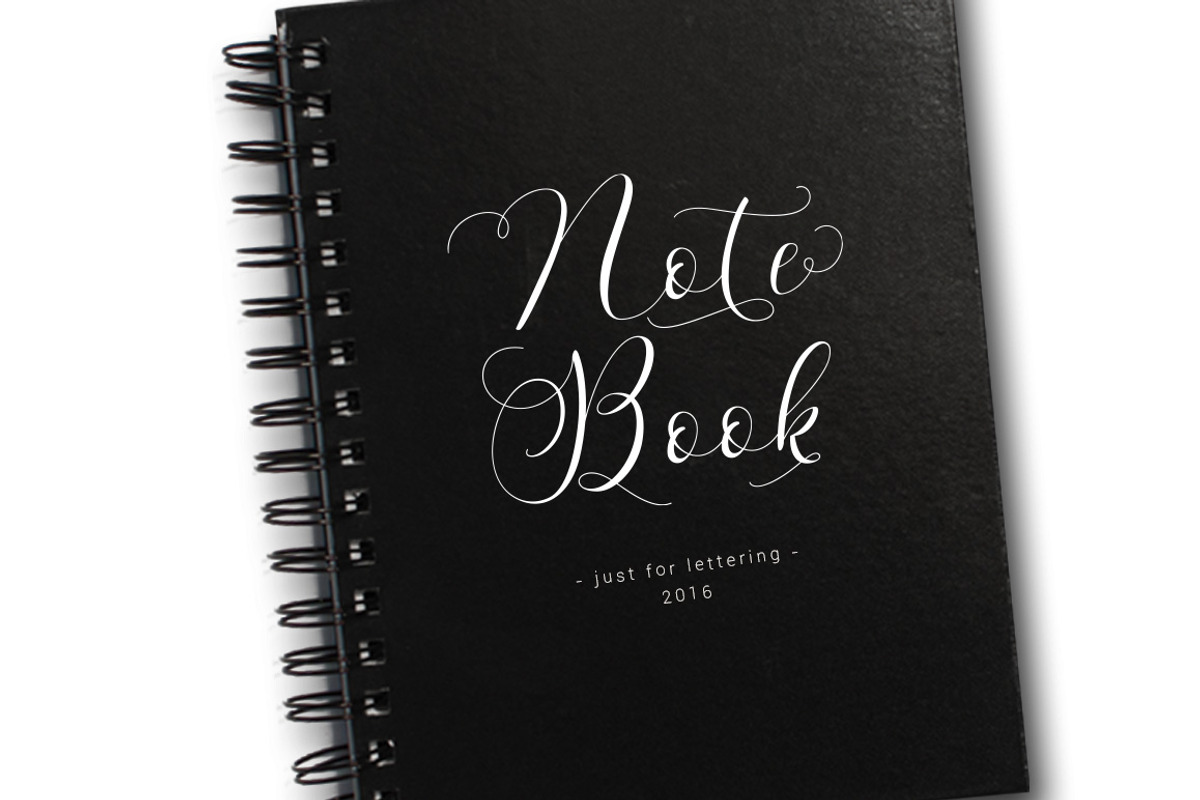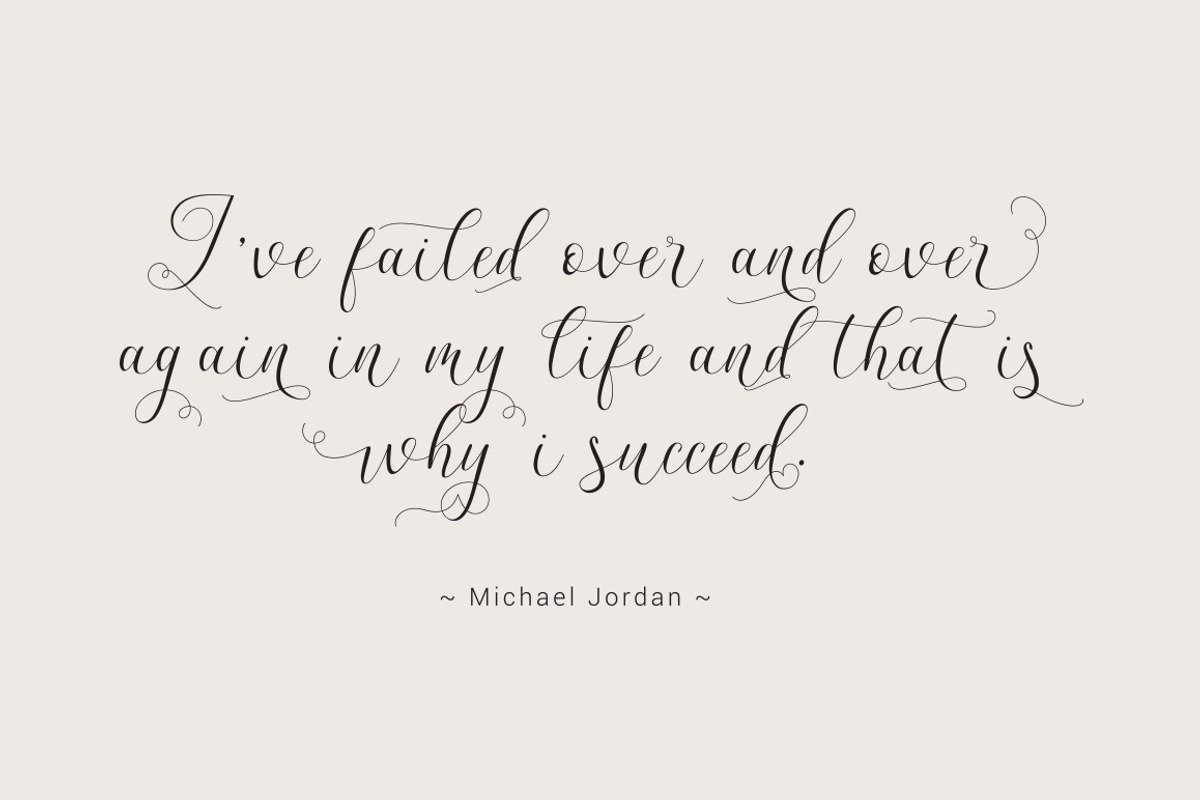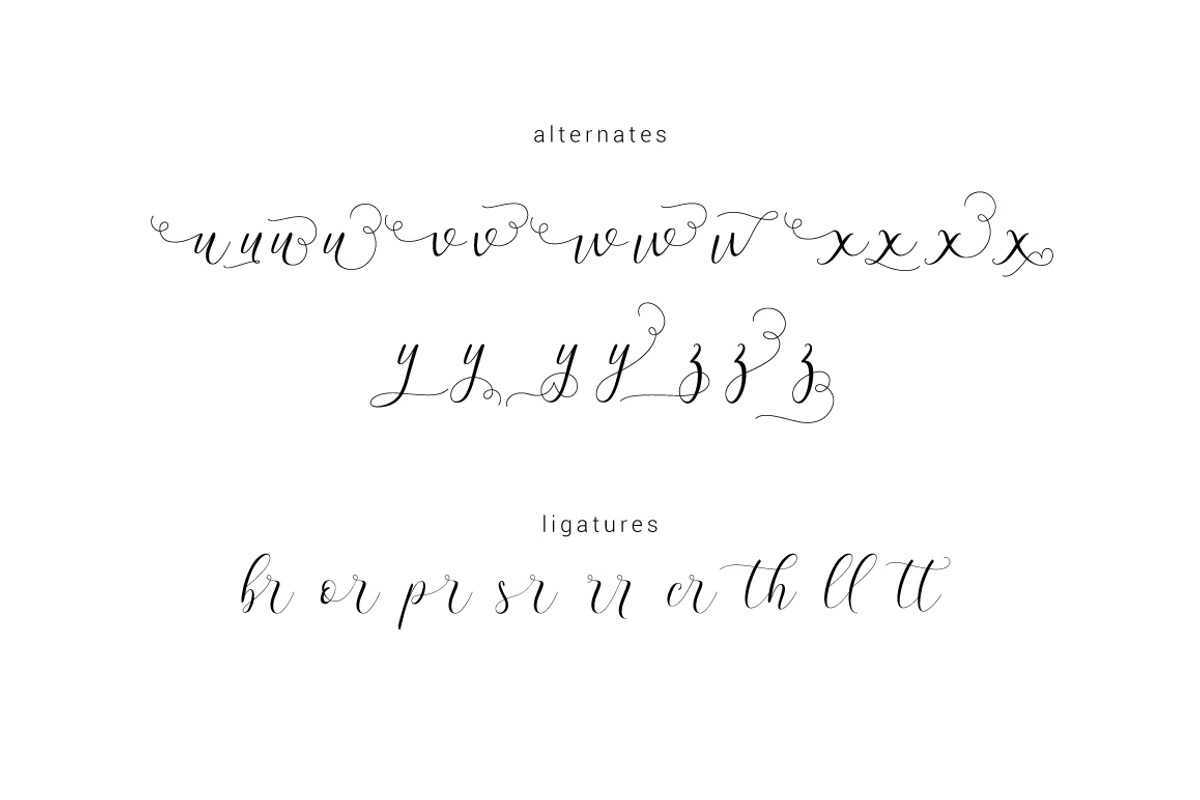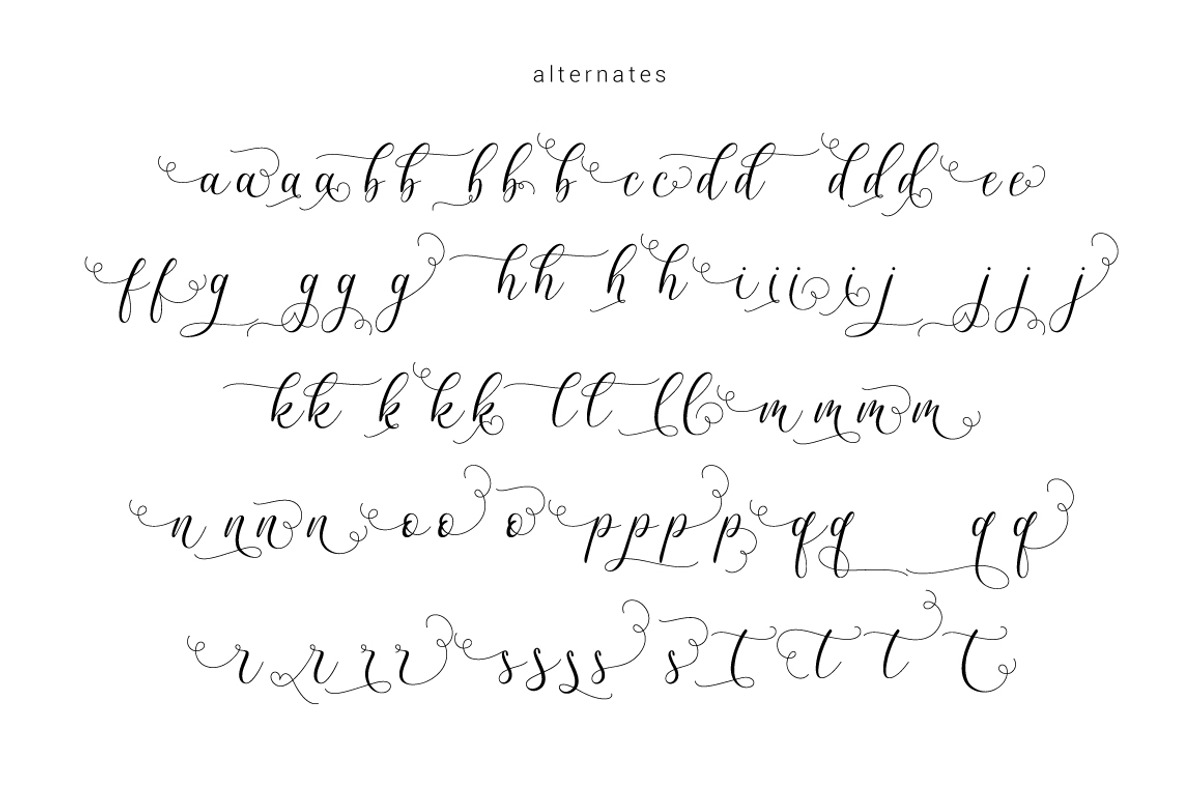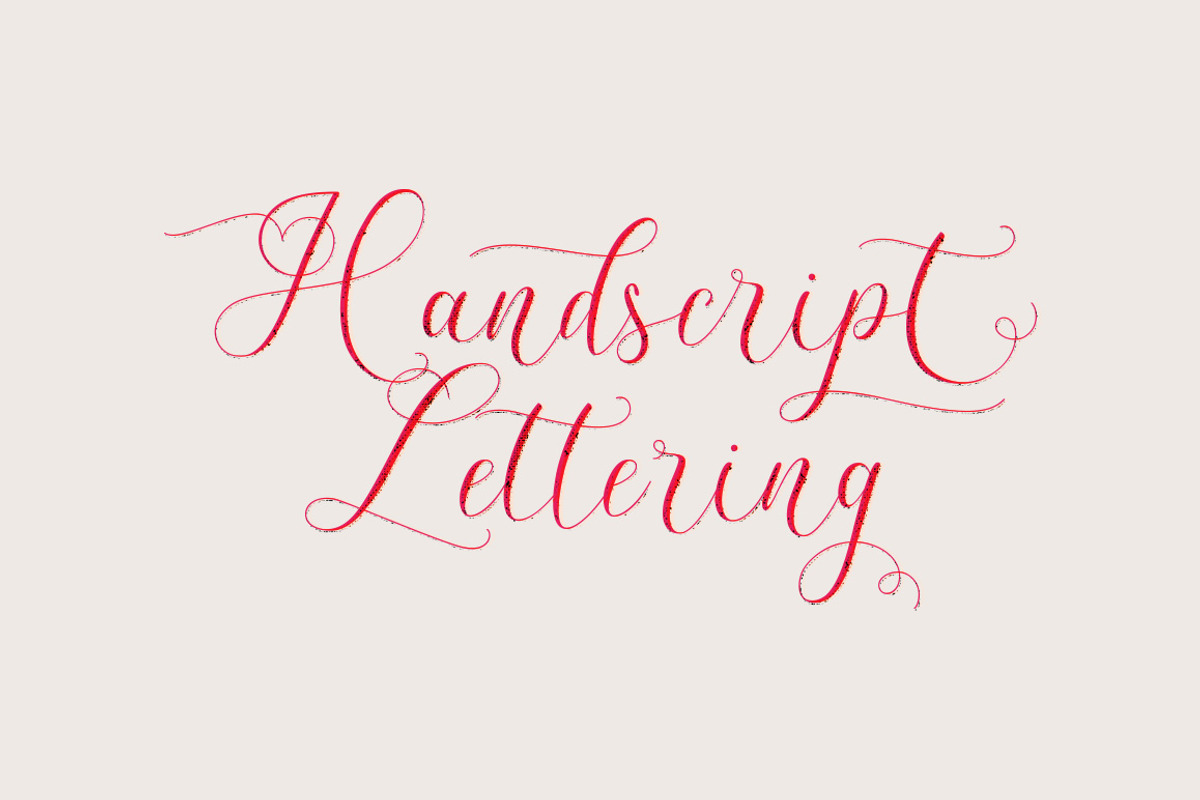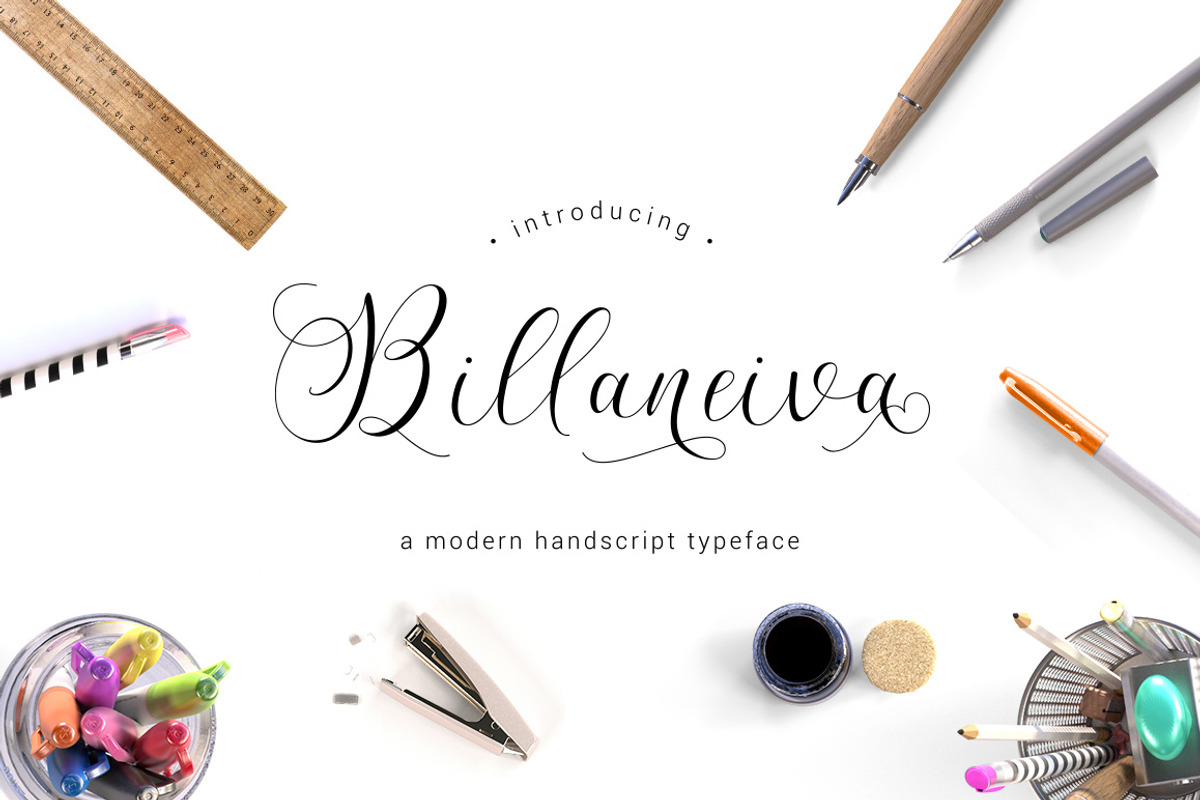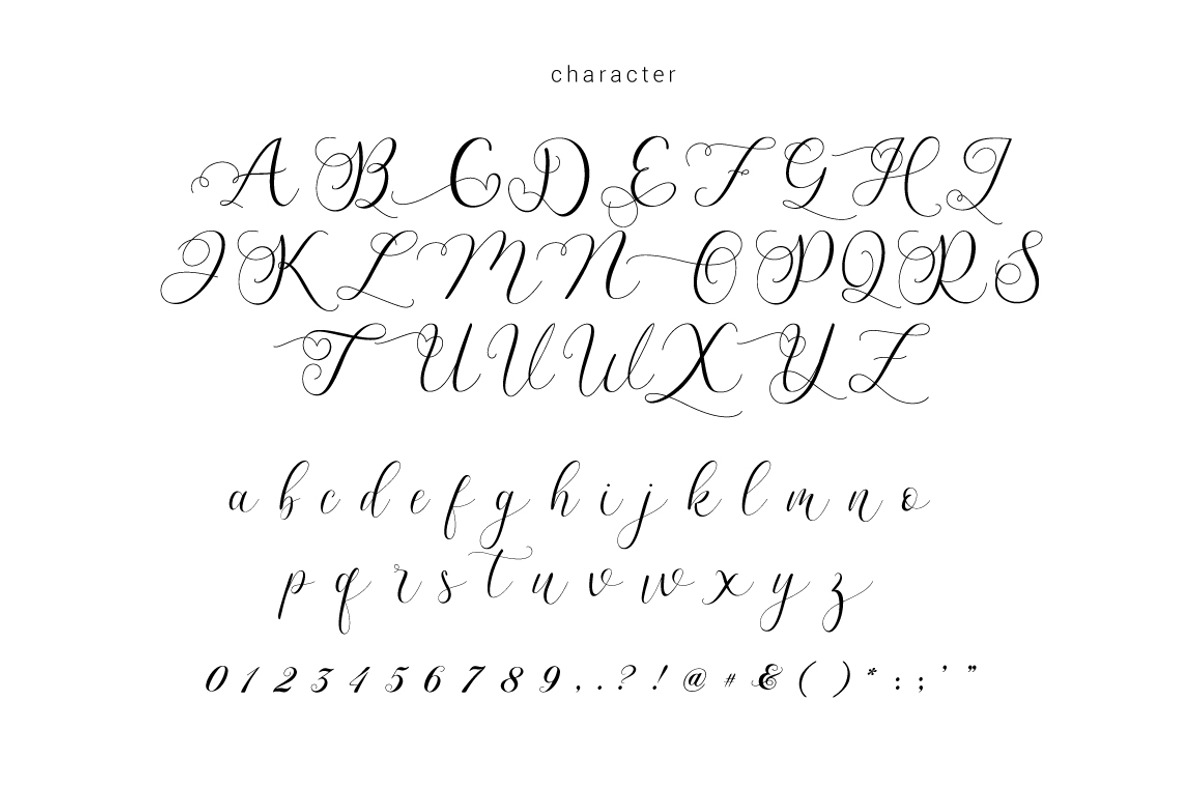
Billaneiva Typeface
Billaneiva Typeface by Thirtypath Studio is a font selected for branding, posters, packaging, typography.
- Comes with upper and lowercase characters, large set of punctuation glyphs, numerals, and supports international languages.
- Standard Character
- Stylistic Sets
Why Billaneiva Typeface is worth a look
Billaneiva Typeface by Thirtypath Studio fits naturally into Branding, posters, packaging, typography.